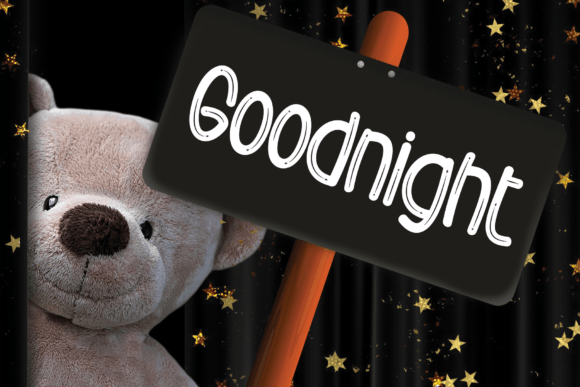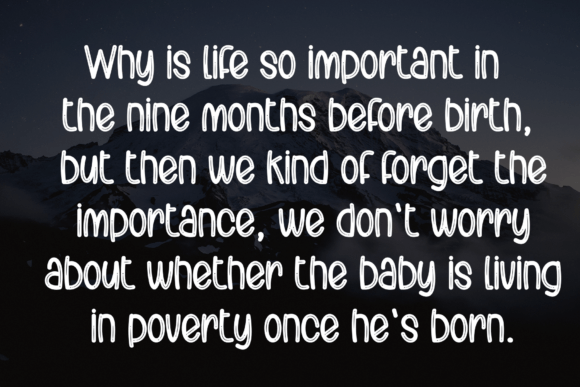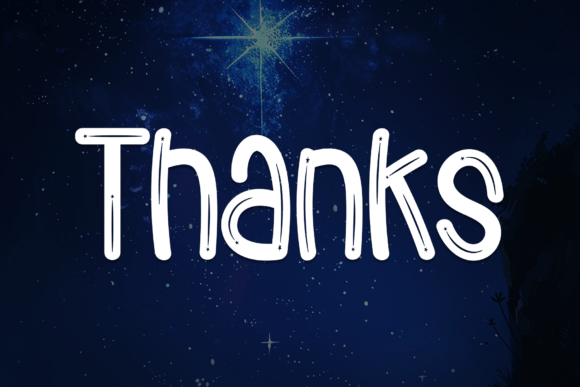
Introduction to Miracle Starlight Font Font
Fonts play a crucial role in design, and the Miracle Starlight Font font is a typeface that brings both character and versatility to any project. Whether you’re working on a branding project, a website, or a print design, the Miracle Starlight Font font offers a unique style that can elevate your work.
Miracle Starlight is a sweet and friendly handwritten font.
Key Features of Miracle Starlight Font Font
Why Choose Miracle Starlight Font Font?
The Miracle Starlight Font font is more than just a typeface – it’s a design tool that helps you communicate your message with style and clarity. Its unique character set and versatile design make it suitable for a wide range of applications, from elegant invitations to bold headlines.
With its carefully crafted letterforms and balanced proportions, the Miracle Starlight Font font ensures readability and visual appeal across all mediums.
What makes Miracle Starlight Font font special?
The Miracle Starlight Font font stands out with its unique design, exceptional readability, and versatility across various design applications.